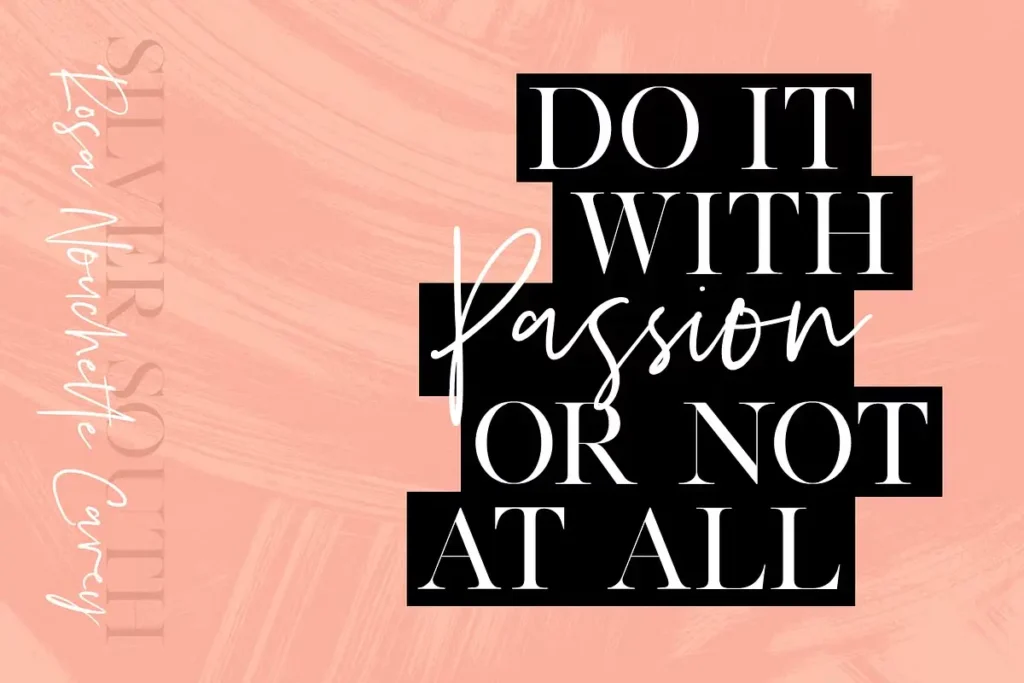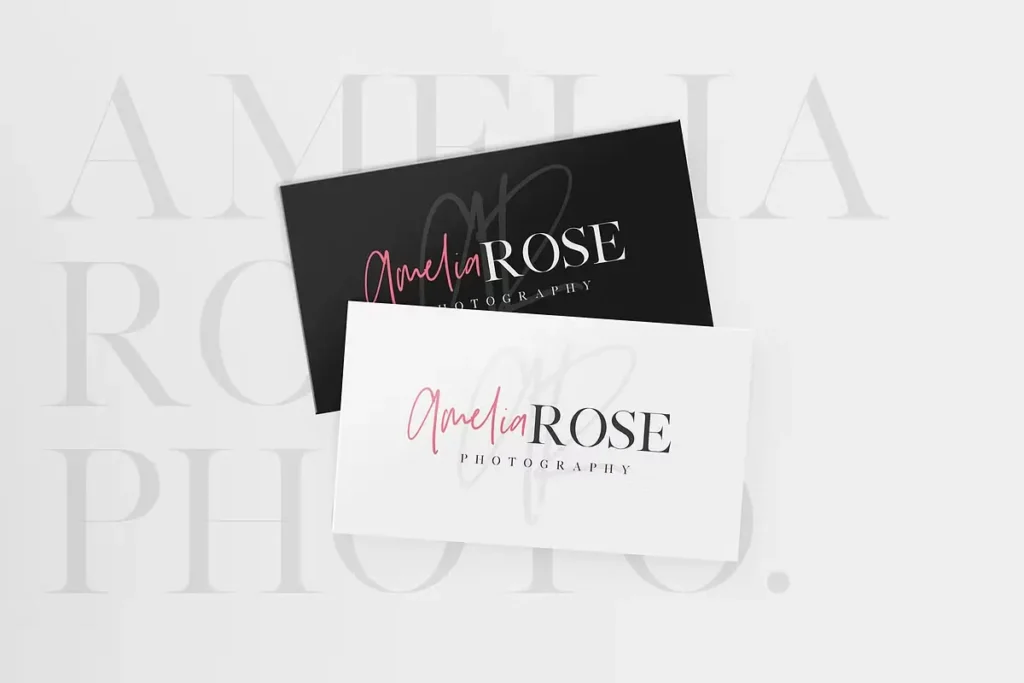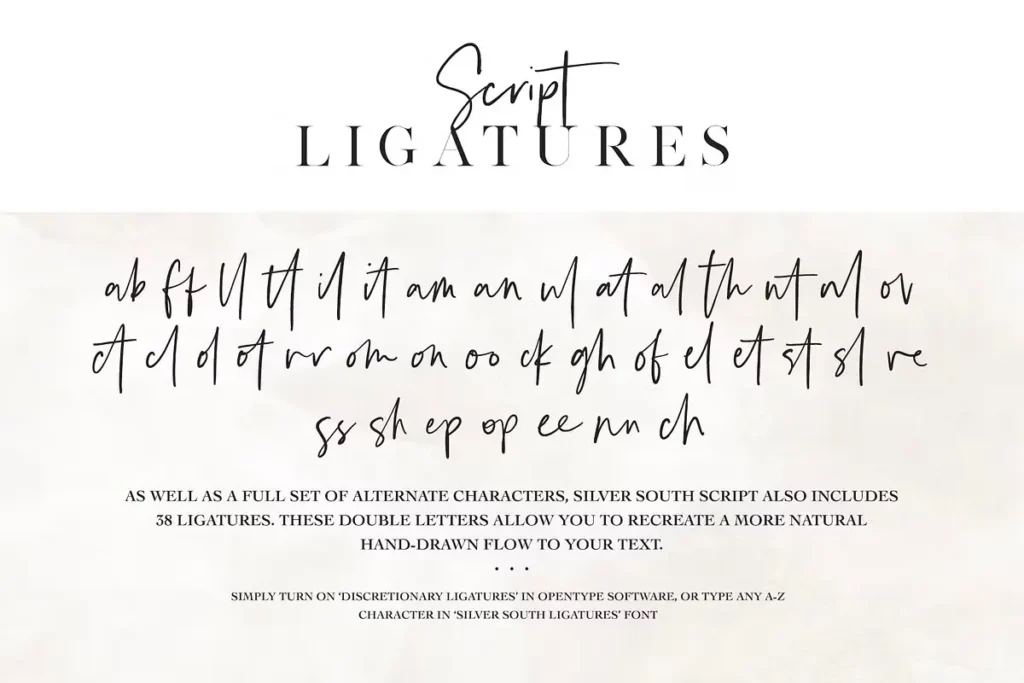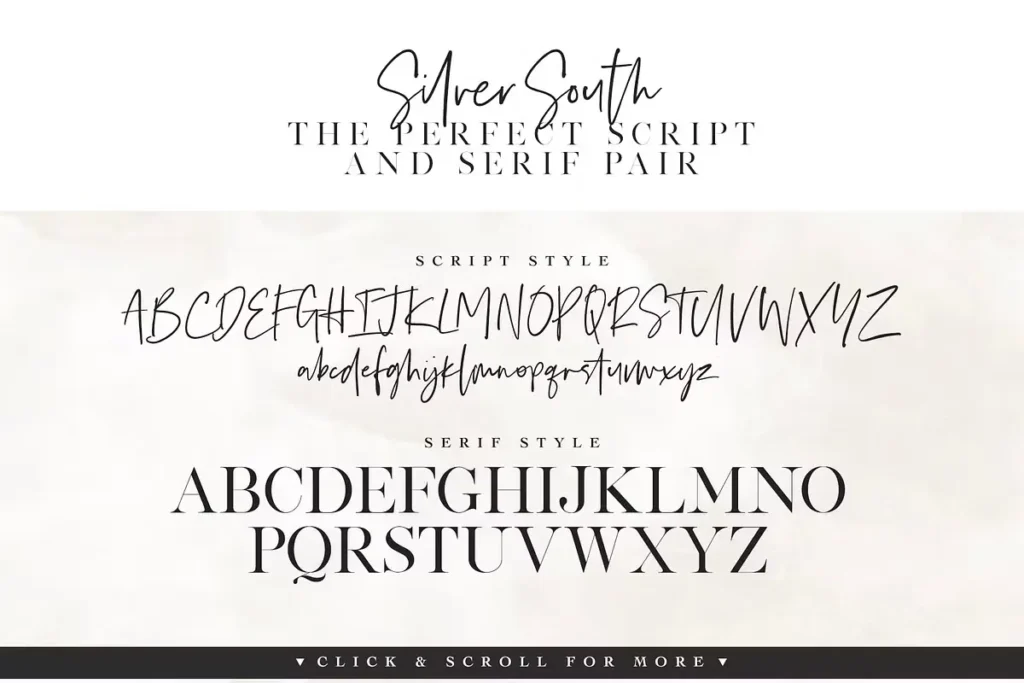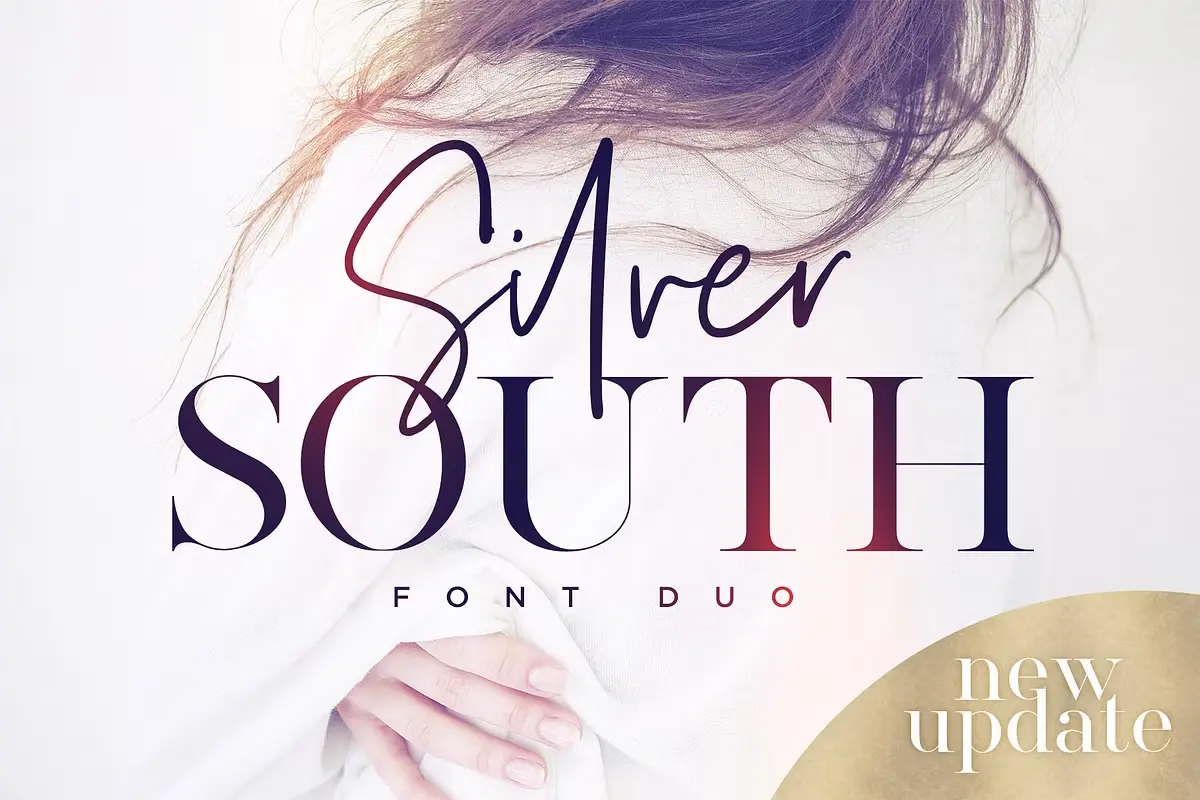
About Silver South Font
I stumbled across the Silver South Font Duo last month while hunting for the perfect typeface for a luxury skincare brand project. As a typographer with 8 years in graphic design, I’m always searching for fonts that deliver both character and versatility. Silver South caught my eye on Behance, and I immediately incorporated it into my client’s packaging design.
The contrast between the flowing script and sharp serif created exactly the upscale feel we needed. I’ve since used it for three more projects, including a wedding invitation suite that my clients absolutely loved. The font’s versatility surprised me – it works across both digital and print applications without losing its distinctive charm.
The Designer’s Vision
Silver South Font represents the remarkable craftsmanship of Sam Parrett, the creative mind behind Set Sail Studios. Parrett designed this elegant pairing as a modern take on classic typography, blending contemporary design sensibilities with timeless elegance. The stylish didot-style serif font showcases crisp, high-contrast strokes that communicate sophistication, while the expressive script companion flows with natural calligraphy-inspired movements.
What makes Silver South stand out in the crowded typography market is its thoughtful balance. The serif component offers structure and readability, while the script adds personality and flair. Parrett clearly understood the need for fonts that can work hard across multiple applications. His attention to glyph details – particularly the smooth connections in the script font – shows his expertise in type design.
The font represents a fresh direction in modern typography by combining clean, precise letterforms with organic flourishes. This balance makes Silver South equally effective for luxury branding, editorial design, or special event materials without feeling overused or generic.
Features That Shine
Silver South isn’t just beautiful – it’s packed with smart features that make designers’ lives easier. The package includes four complementary font files that work flawlessly together or stand strong independently.
The Silver South Script offers clean, flowing letterforms with a natural handwritten quality, while Silver South Script Alt provides a complete second version with alternative characters.
This clever approach lets you avoid repetition when letters appear multiple times in a word, creating a more authentic custom-lettered appearance. Simply switch to this font for an additional layout option when you need variety.
The Silver South Serif delivers crisp, elegant typography with its classy serif design, creating a perfect pairing contrast with the script variations. The font includes extensive punctuation, numerals and a large range making it practical for body text, not just headlines.
What impressed me most was the dedicated Silver South Ligatures font, which smartly handles letter combinations. For designers without OpenType software, this fourth font file provides easy access to beautiful letter combinations. If you do have OpenType capabilities, turning on “Discretionary Ligatures” automatically transforms standard letter pairs into custom ligatures.
The multilingual support covers 13 languages, including English, French, German, and more, making this a truly versatile tool for international projects.
The Silver South Font Duo shines across countless applications. I’ve personally used it for logo design where the script component adds signature-like authenticity while the serif maintains readability. For wedding stationery, it delivers that perfect balance of romance and elegance – invitations, programs, and place cards all benefit from its sophisticated look.
On social media, Silver South cuts through the noise. Instagram quotes and promotional graphics gain immediate visual distinction with the font’s unique character. The serif component works perfectly for longer texts on Facebook posts or LinkedIn articles.
Product packaging is where I’ve seen Silver South truly excel. The script adds luxury to cosmetics, specialty foods, and beverage labels, while the serif handles important details like ingredients and descriptions. The contrast between the two creates visual hierarchy without requiring additional fonts.
For advertising materials, both print and digital, Silver South offers enough variation within its family to create complete campaigns. Magazine spreads, brochures, website headers, and display ads all benefit from its cohesive yet diverse character set. The font performs beautifully across Adobe software – from Illustrator to InDesign to Photoshop – and renders well on both Mac and Windows systems.